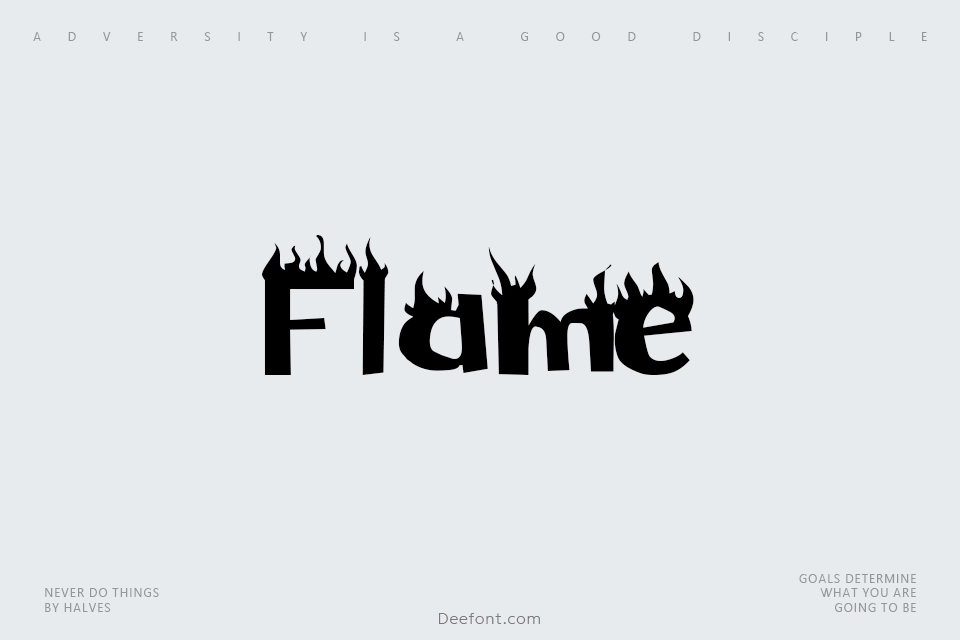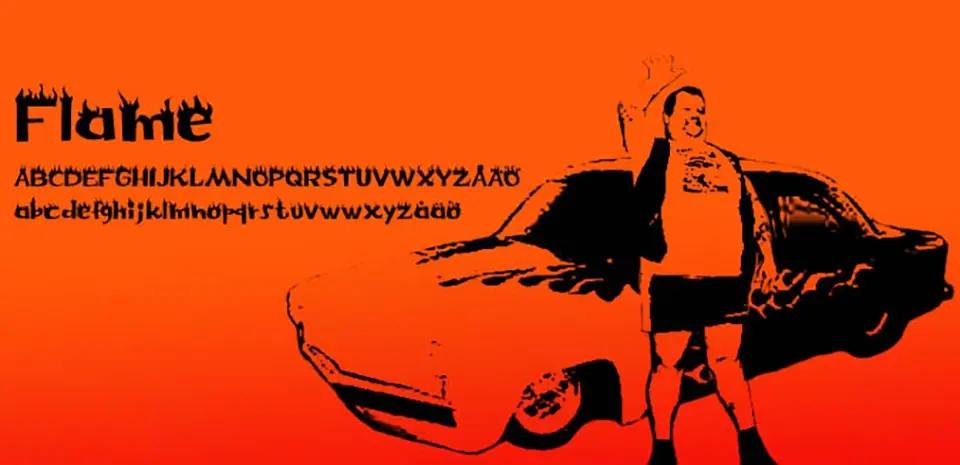
Flame Font
Flame is a bold and dynamic fancy typeface featuring fiery, sharp-edged design with dramatic curves that capture the intensity and movement of flames. Created by Fontomen in 1997, this display font combines powerful strokes and striking elements perfect for high-impact designs, posters, titles, and creative projects demanding visual strength and energy.